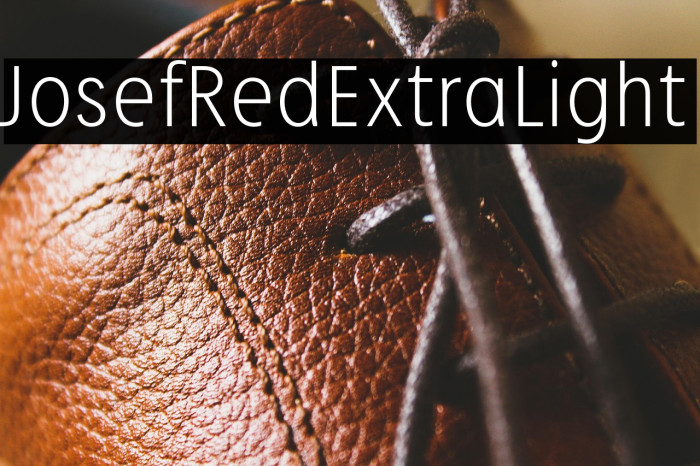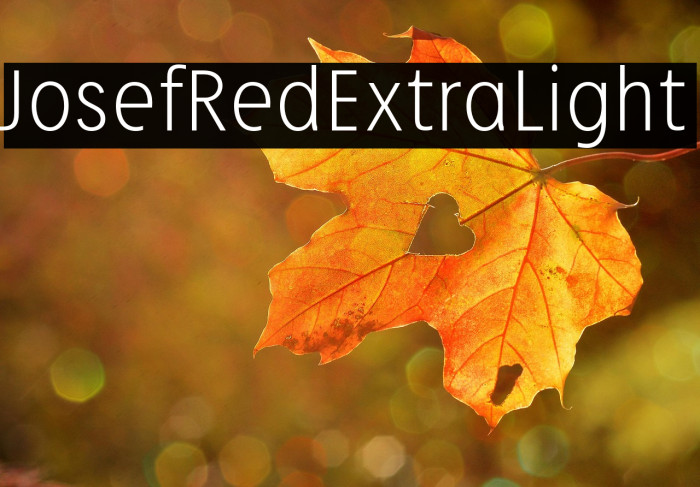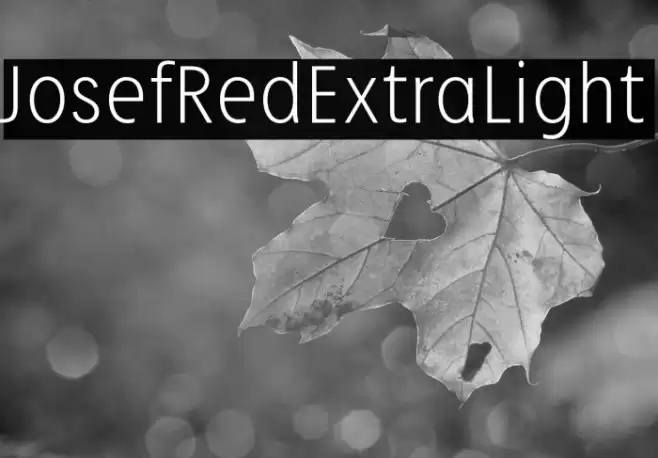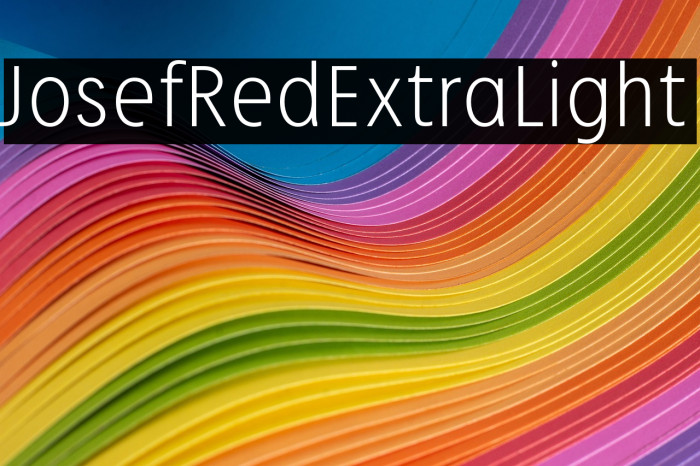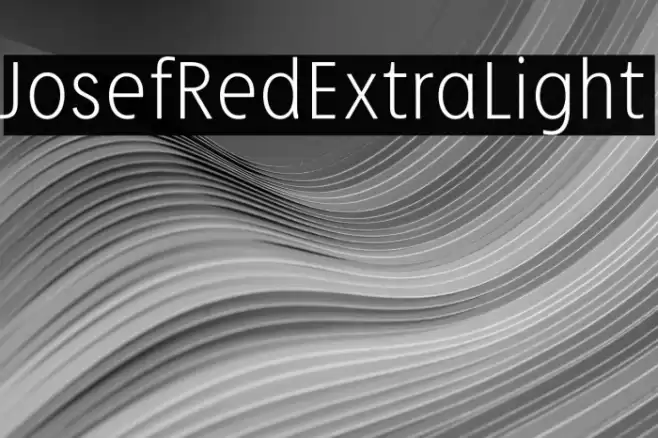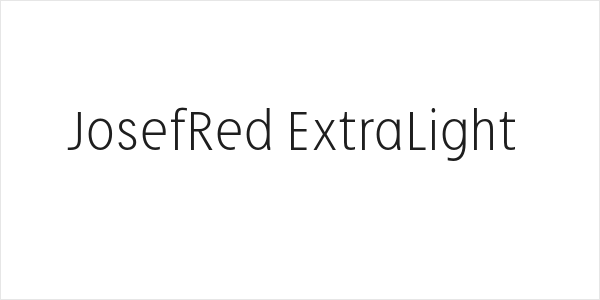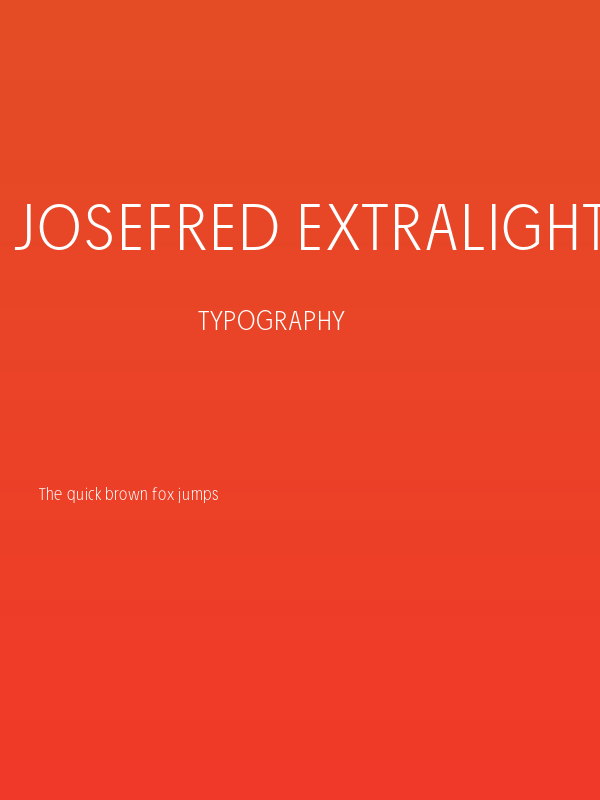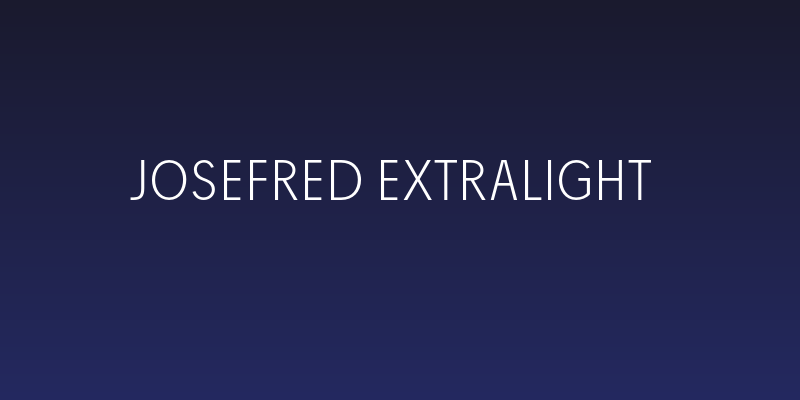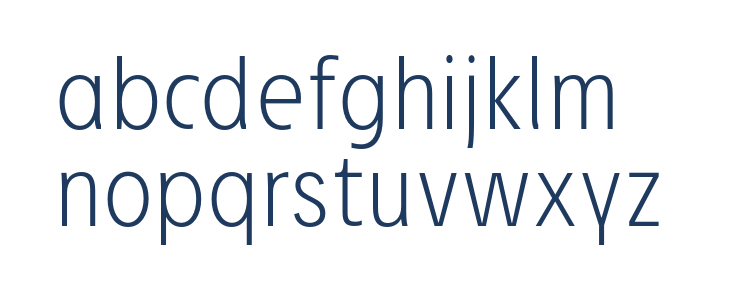
JosefRed-ExtraLight Font
JosefRed-ExtraLight Description
This font exhibits a clean and minimalist design, characterized by its thin, uniform strokes and geometric shapes. The uppercase letters are tall and elegant, while the lowercase letters maintain a consistent height, offering a harmonious appearance. The font's simplicity and clarity make it highly legible, even at smaller sizes. Its modern aesthetic is enhanced by the absence of serifs, giving it a sleek and contemporary feel. The spacing between characters is balanced, contributing to its readability and versatility across various applications.
| Proposed Projects | Ideal for modern branding, minimalist design projects, digital interfaces, and editorial layouts. |